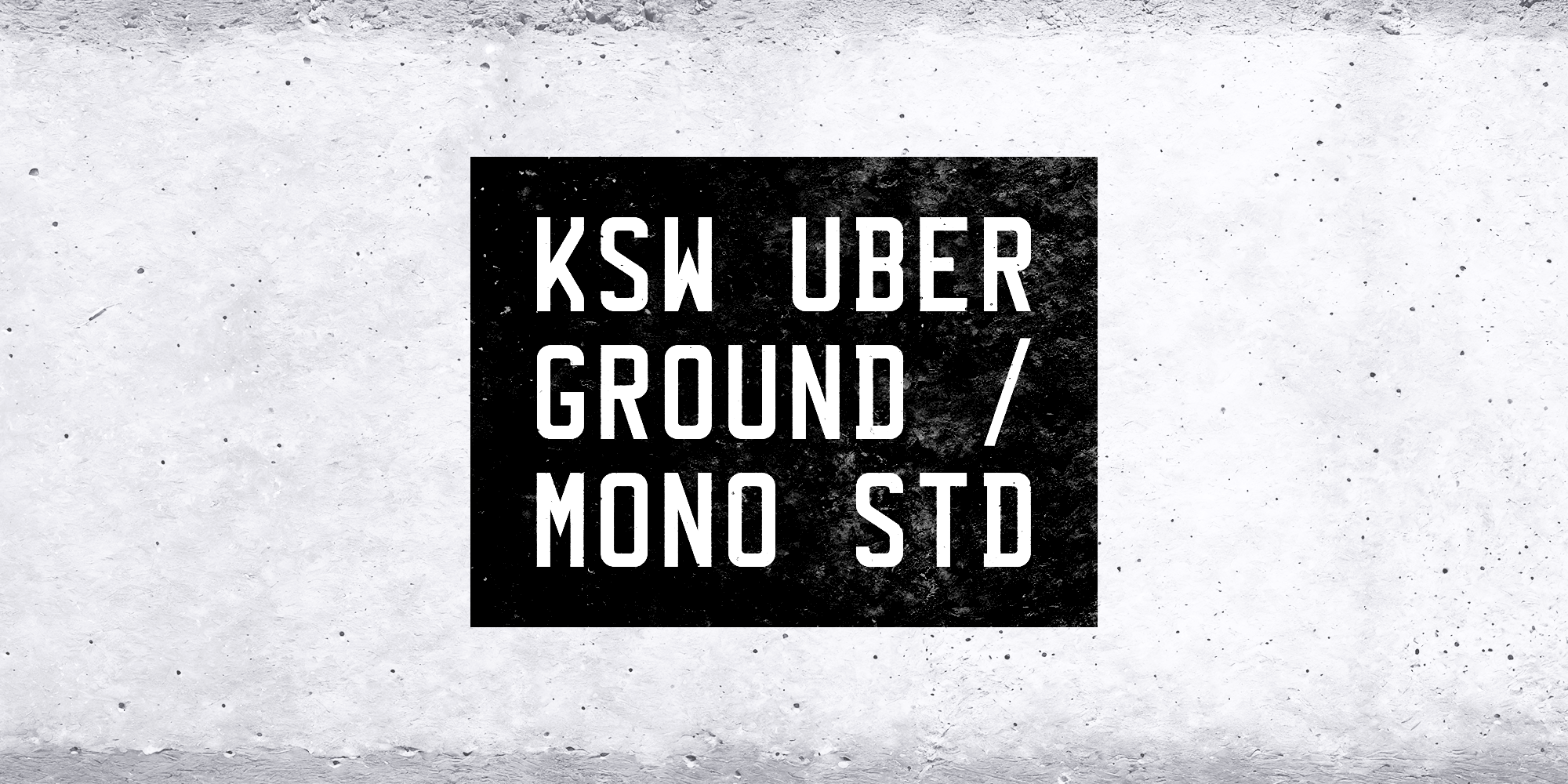
KSW Uberground Mono Std Font is perfect for underground music venue branding, alternative culture publications, indie record label materials, urban streetwear packaging, experimental art gallery signage, avant-garde theater promotions, countercultural event posters, independent publishing projects, subversive marketing campaigns, and authentic alternative lifestyle communications.
What makes KSW Uberground Mono Std Font so exciting is its extraordinary ability to embody the rebellious spirit and creative independence of underground culture through precisely spaced letterforms that seem typed on vintage typewriters in dimly lit basement studios where true artists gather to create authentic expressions that challenge conventional thinking and celebrate nonconformist creativity. This font captures the essence of subcultural authenticity and artistic rebellion, featuring systematically crafted characters that appear designed for underground publications and independent manifestos that speak truth to power. The uniformly spaced letter shapes create an atmosphere of raw authenticity and intellectual dissent, making every word feel like it carries the authority of independent voices who refuse to compromise their artistic vision for commercial acceptance.
The KSW Uberground Mono Std Font family includes Light, Regular, Medium, Bold, and Heavy weights, along with distressed and typewriter variations for maximum underground authenticity. Each style maintains the font's distinctive monospaced character while offering versatility for different countercultural applications, from subtle zine text to commanding protest headlines that announce the arrival of genuine artistic rebellion and independent creative expression.
This authentic typeface brings genuine underground aesthetics to contemporary design projects. The KSW Uberground Mono Std Font Free Download provides designers with an exceptional tool to create memorable brand identities that communicate independence, authenticity, and countercultural credibility. Whether you're developing alternative music branding, designing independent publication materials, or creating underground event communications, this font delivers unmatched authenticity and subcultural appeal.
The expertly engineered letterforms in KSW Uberground Mono Std Font feature consistent spacing and underground proportions that ensure optimal readability across both traditional print and digital platforms while expressing the systematic thinking and independent spirit that define authentic underground culture. Each character has been designed to maintain perfect alignment while conveying the rebellious creativity and intellectual independence that separate genuine alternative culture from manufactured rebellion. The font's distinctive personality makes it ideal for applications requiring authentic countercultural authority and underground credibility.
Alternative culture professionals appreciate how KSW Uberground Mono Std Font instantly establishes underground credibility and countercultural authenticity while appealing to audiences seeking genuine alternative experiences that challenge mainstream thinking and celebrate independent artistic expression. The comprehensive character set includes alternative symbols, underground elements, countercultural decorations, and extensive international language support, ensuring global compatibility while maintaining its distinctive uberground identity. This makes it an invaluable resource for independent labels, alternative publishers, underground venues, and any organization seeking typography that embodies the core values of artistic independence, creative rebellion, and the unwavering commitment to authentic expression that defines true underground culture and the courageous individuals who choose to create outside the boundaries of commercial acceptability while maintaining the systematic precision that gives their rebellious messages maximum impact and lasting influence.